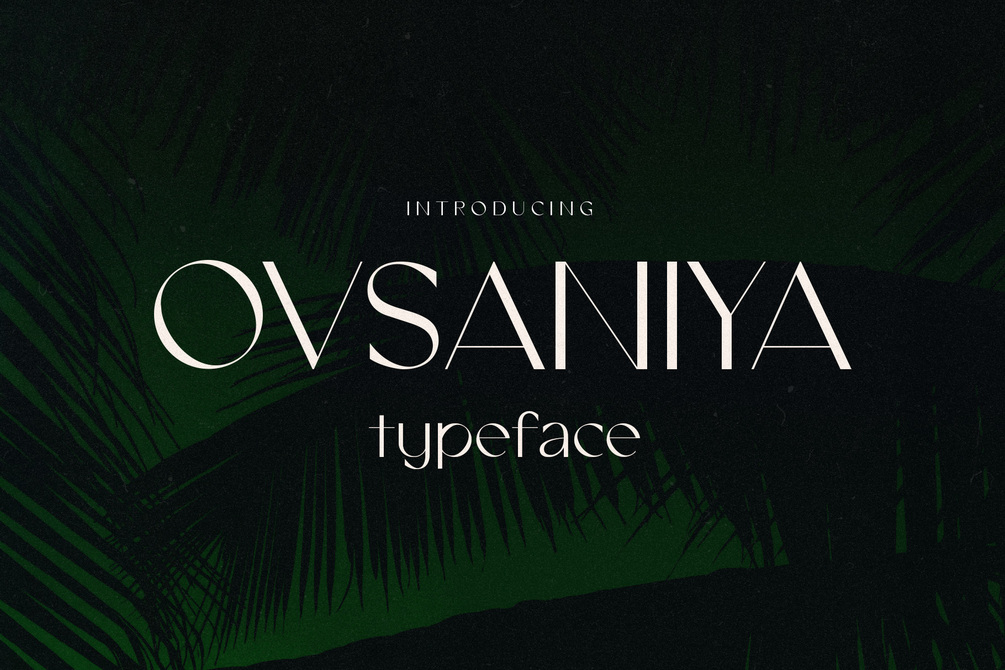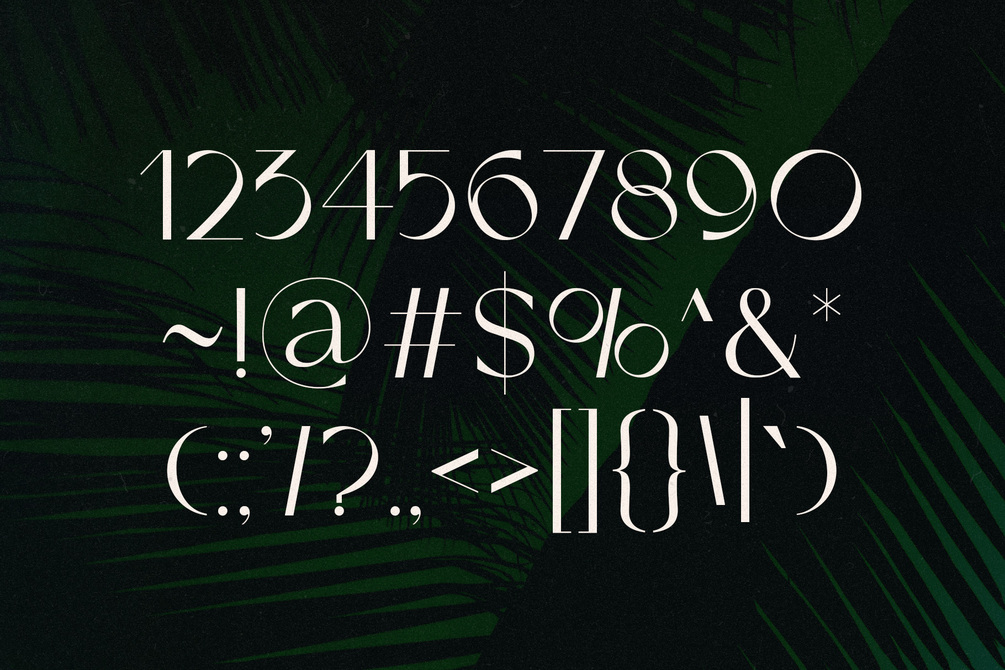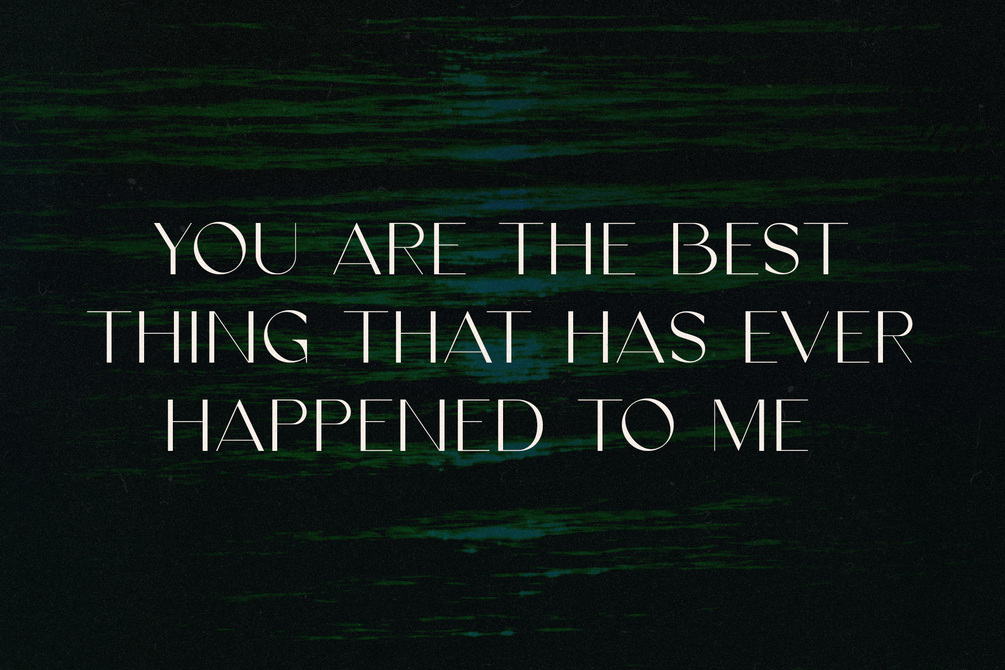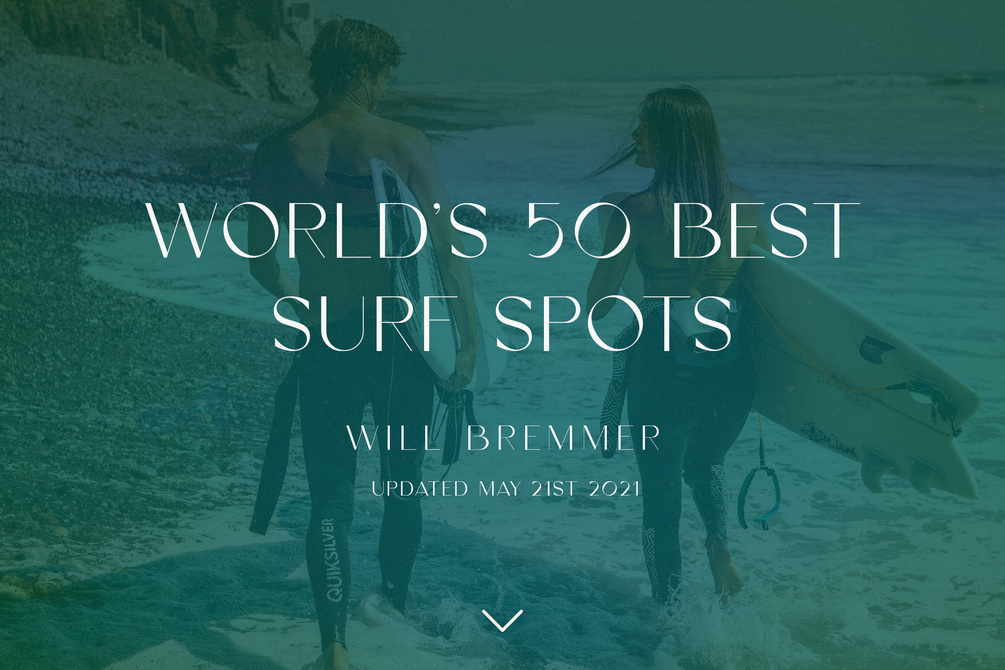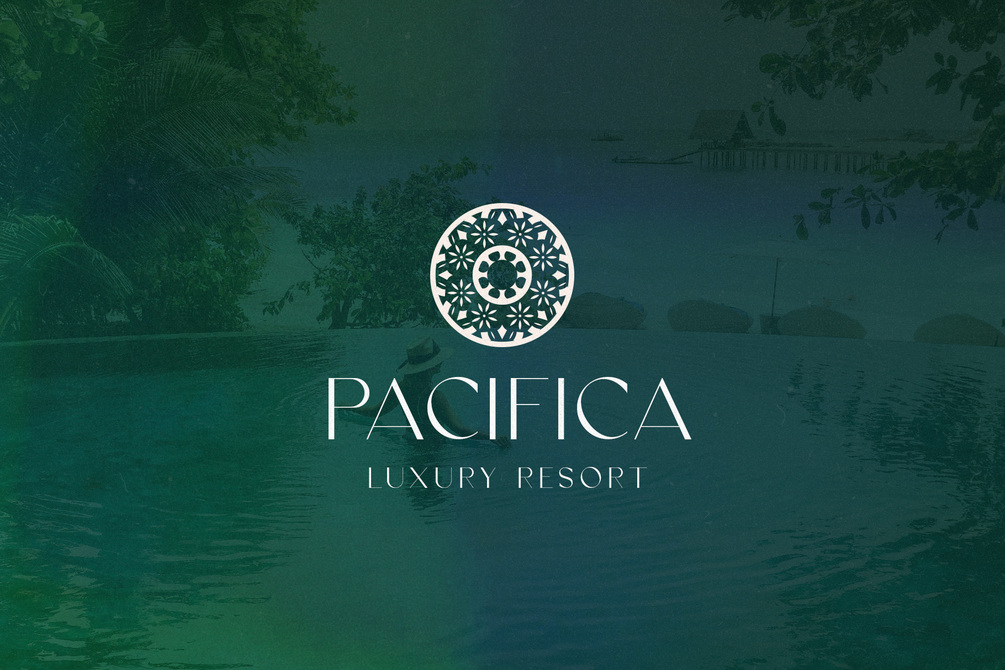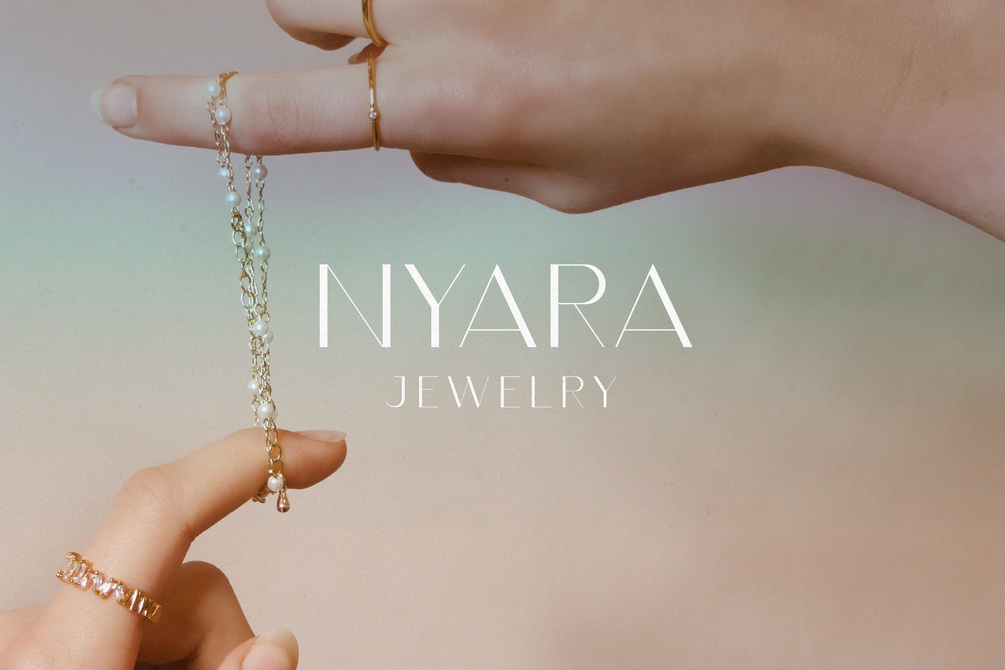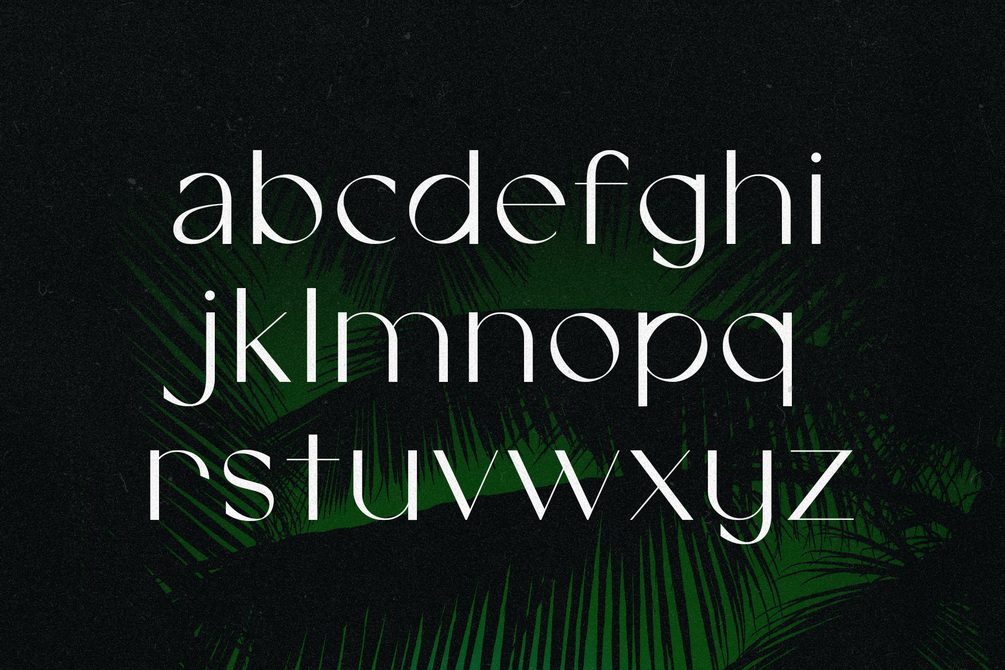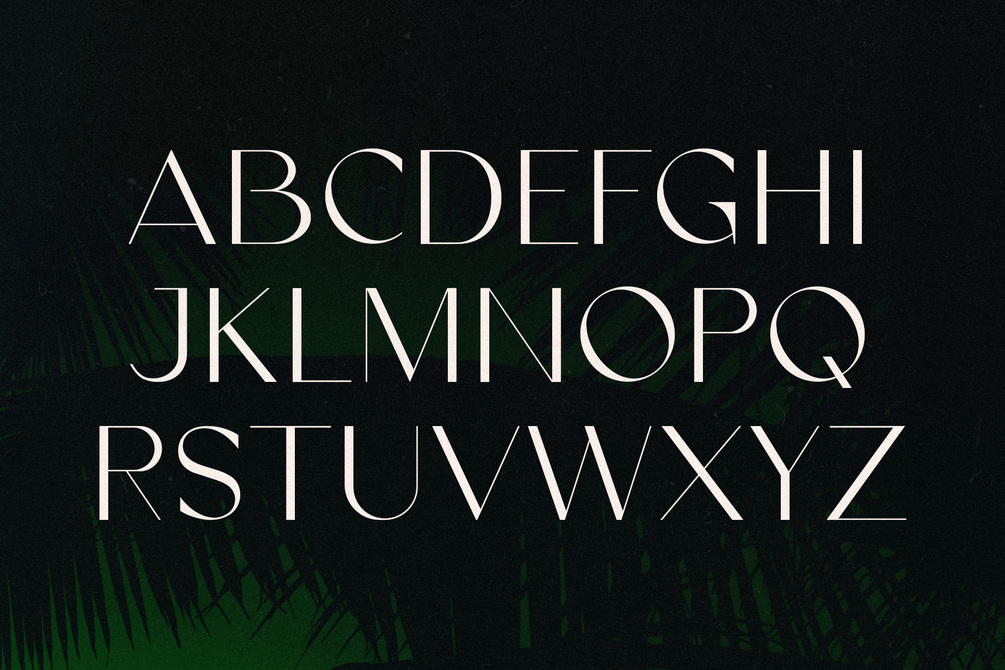
Ovsaniya - Timeless Typeface
Ovsaniya is a timeless sans serif display font perfect branding, advertising, packaging, headlines, wedding invitations, and more. If you're looking for a typeface that oozes class, then Ovsaniya is for you.